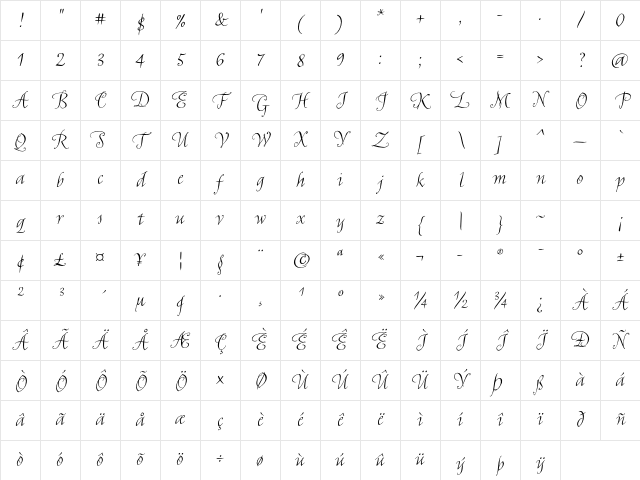
Rastko ITC Std Regular
Designer: Olivera Stojardinovic
Design Context for Rastko ITC Std
Rastko ITC Std is a composed and adaptable typeface that performs quietly and consistently across a wide range of design contexts.